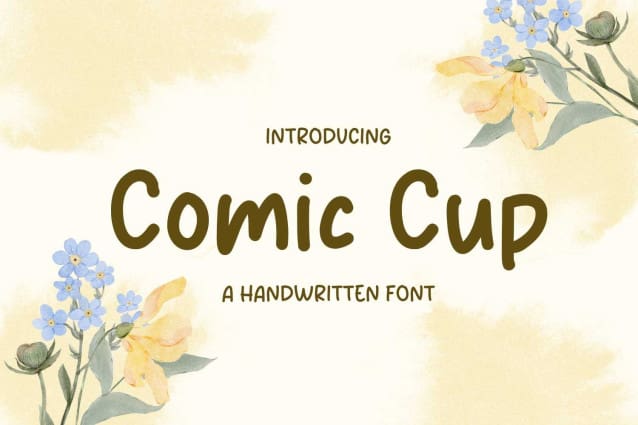
Comic Cup Font
Comic Cup Font is a playful and bouncy handwritten font that will impress you with its versatility! It works great on children-related designs, headlines, magazines, social media posts, advertising materials, websites, and many others.